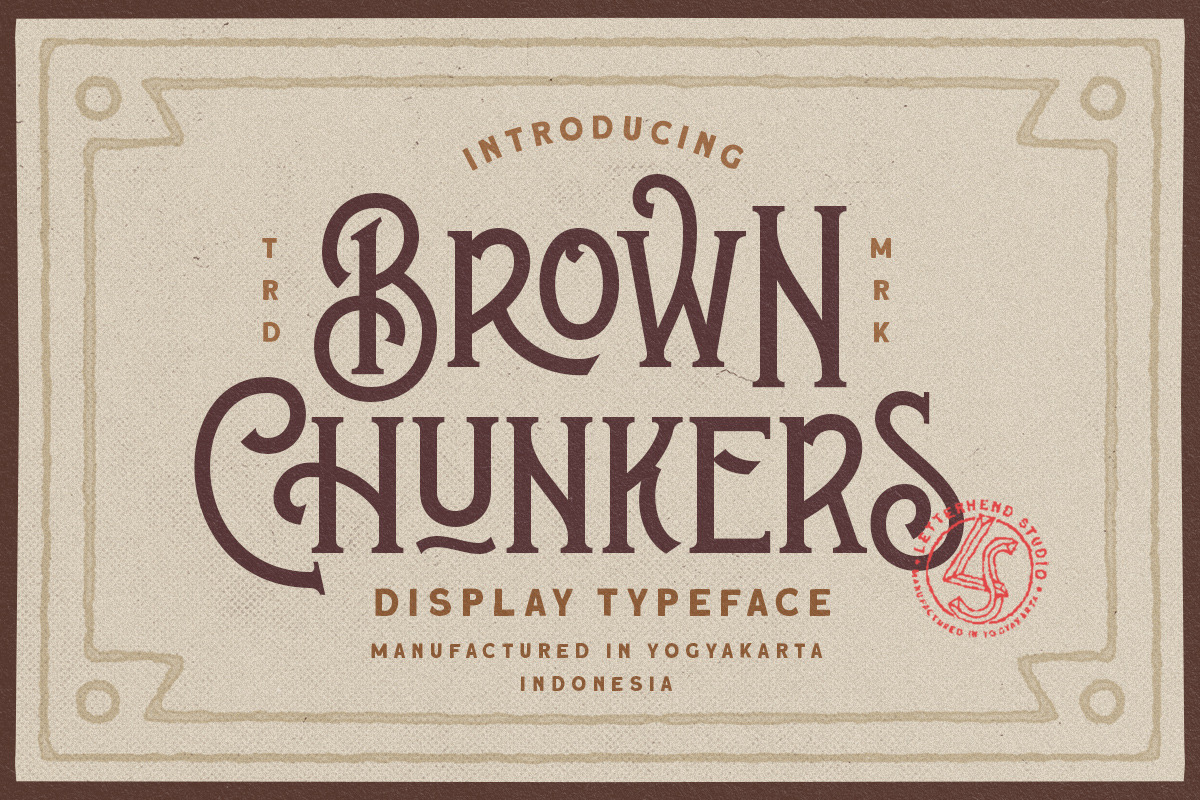
Brown Chunkers - Display Typeface
Introducing our latest display typeface named Brown Chunkers. A unique serif based typeface added with many alternates, swashes, ligatures that can make your lettering / logotype become more interesting. The clean and neat of a serif combined with the swirl swashes makes this font one of a kind!
- alternates
- swashes